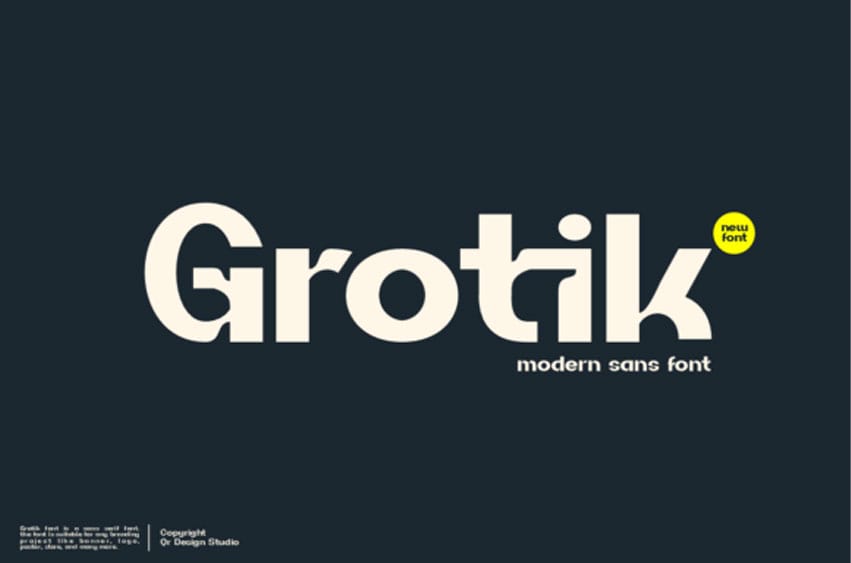
Grotik Font is a bold and authentic display font. It is suitable for any branding project, including logos, sports, and more.
Outstanding in a wide range of contexts.